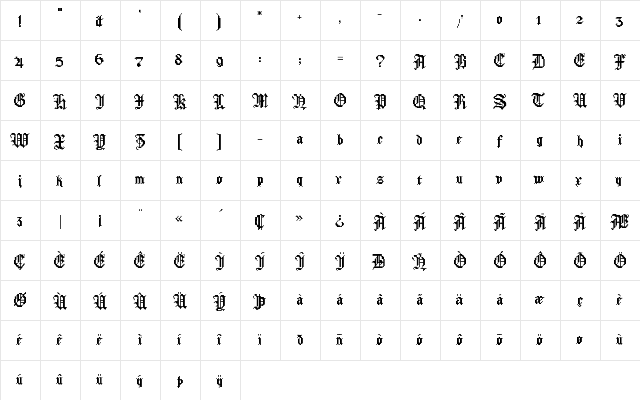
Brodat Regular
| Designer | Andr鳠M. Briganti |
Design Context for Brodat Typeface
Brodat is a composed and adaptable typeface that performs quietly and consistently across a wide range of design contexts.